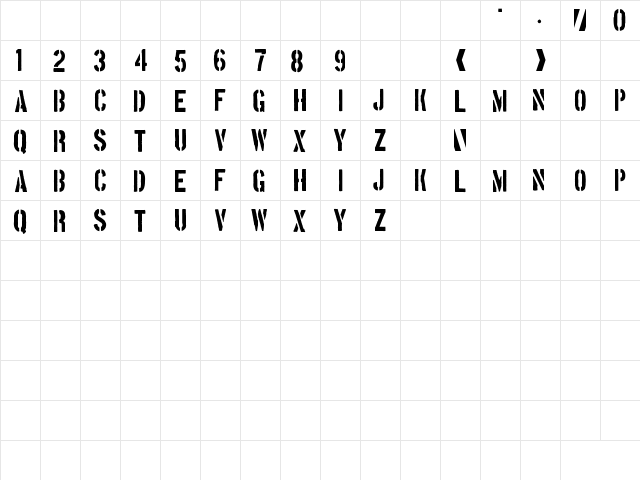
Boston Traffic Regular
Design Context for Boston Traffic Typeface
Boston Traffic takes a measured approach to typography — its balanced proportions and neutral character make it a reliable workhorse for both digital and print work.